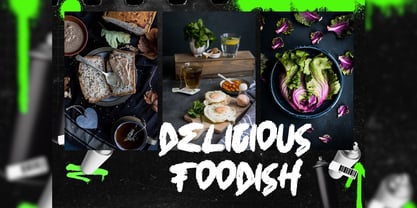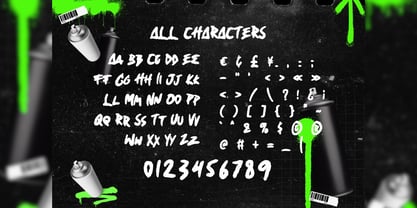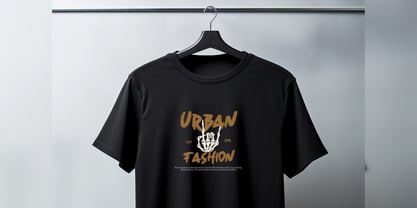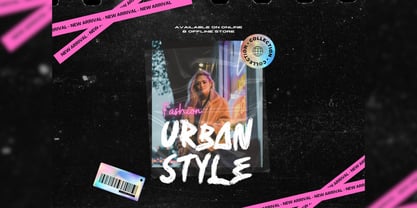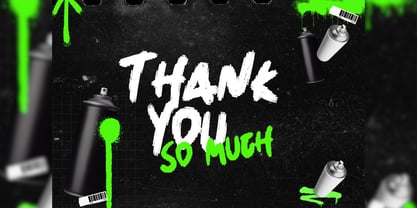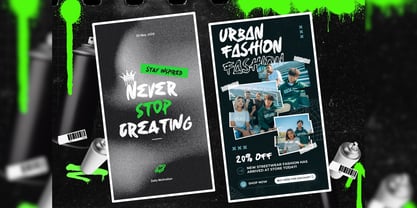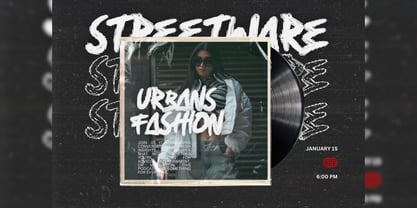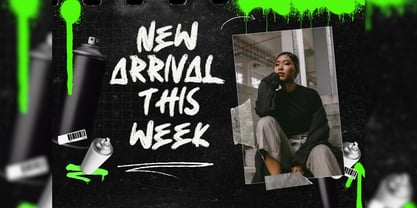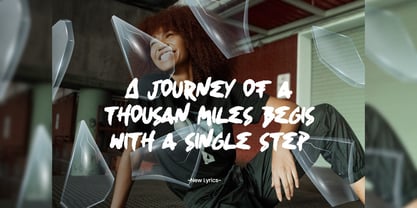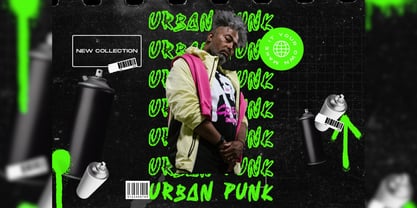
Kneconz
by Yumnacreative
The Kneconz Font Family was designed by Dhimas Habibie and published by Yumnacreative. Kneconz contains 1 styles. More about this family
Introducing Kneconz – Dry Brush Font
Kneconz – Dry Brush Font which has a hand lettering brush style. So it looks natural like a handmade. This texture is very detailed. This font is suitable for logos, product branding, printable templates or for text overlay to any background image, also suitable for use in title design. Such as apparel, invitations, books tittle, stationery design, quotes, branding, greeting card, t-shirt, packaging design, poster and more.